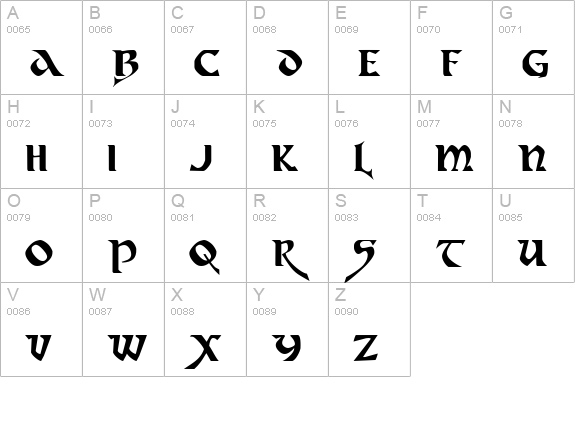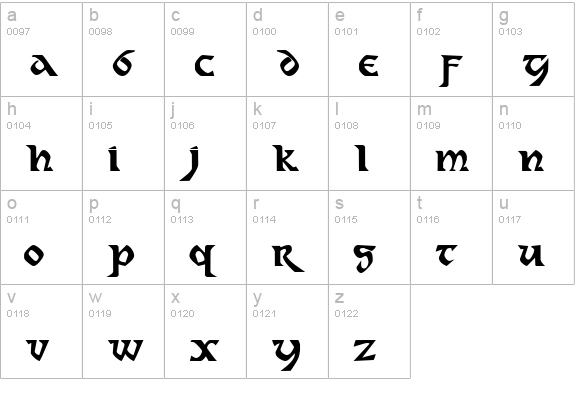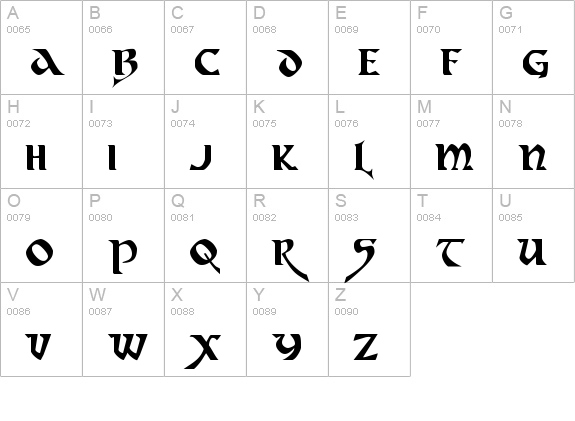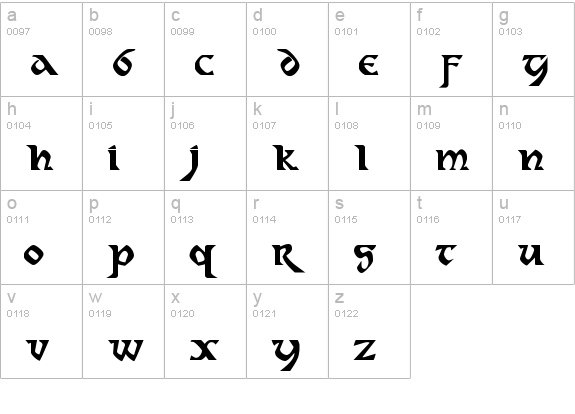
Dahaut Font Details
Dahaut, a stunningly elegant and versatile font, is the perfect choice for designers and creatives looking to add a touch of sophistication to their projects. With its modern yet timeless appeal, Dahaut effortlessly captures attention and conveys a sense of refinement. This font's exquisite letterforms are meticulously crafted, striking the perfect balance between clean lines and artistic flair. Its graceful curves and precise geometry make it ideal for a wide range of design applications, from branding and logo design to editorial layouts and packaging. What makes Dahaut even more appealing is that it is freely available to download at FontsMarket.com. This means that you can access this exceptional font without any cost, allowing you to bring your creative visions to life without any limitations. Whether you're working on a high-end fashion brand, a luxurious lifestyle magazine, or a sophisticated event invitation, Dahaut will elevate your design to new heights. Its versatility allows it to seamlessly adapt to various project styles and themes, ensuring that your work remains visually stunning and captivating. Furthermore, Dahaut's extensive character set includes a range of special characters and ligatures, providing you with endless possibilities to add unique touches and enhance the overall aesthetic of your designs. With Dahaut, you have the power to transform your projects into works of art, effortlessly capturing attention and leaving a lasting impression. Download this remarkable font for free at FontsMarket.com and unlock a world of design possibilities.